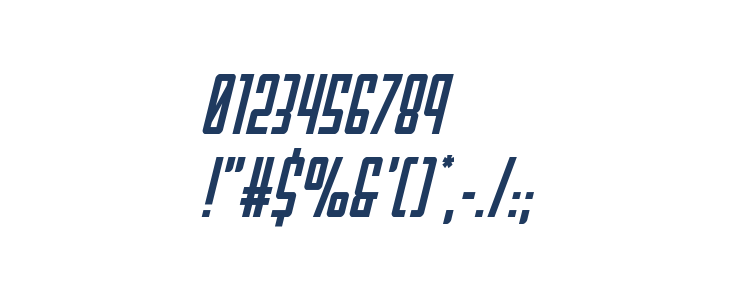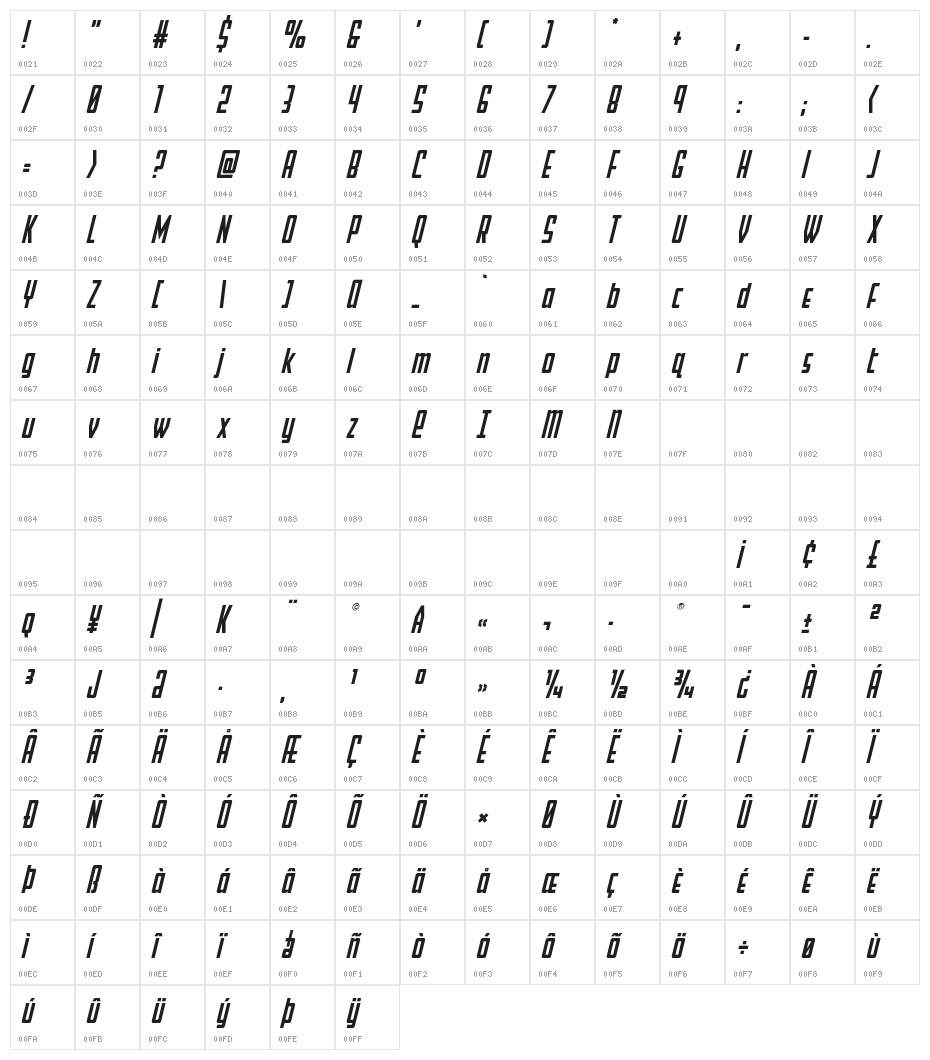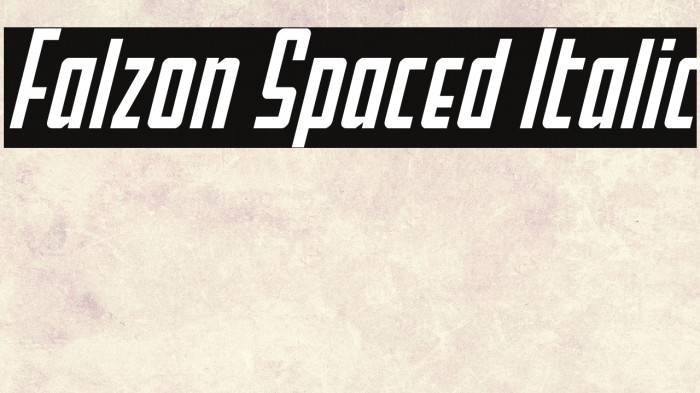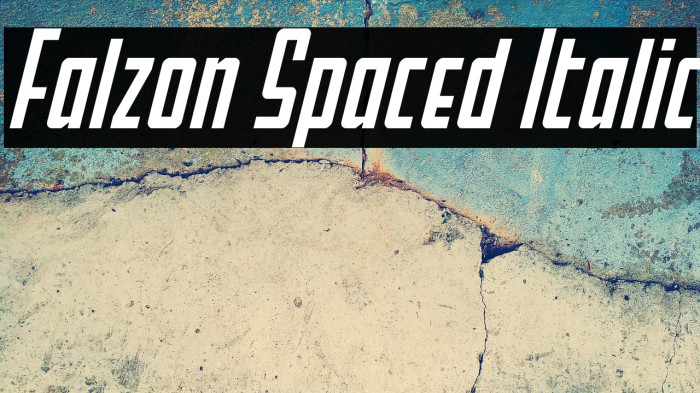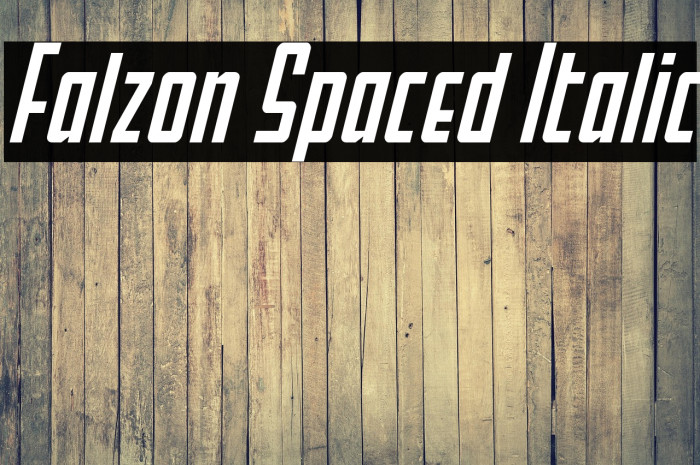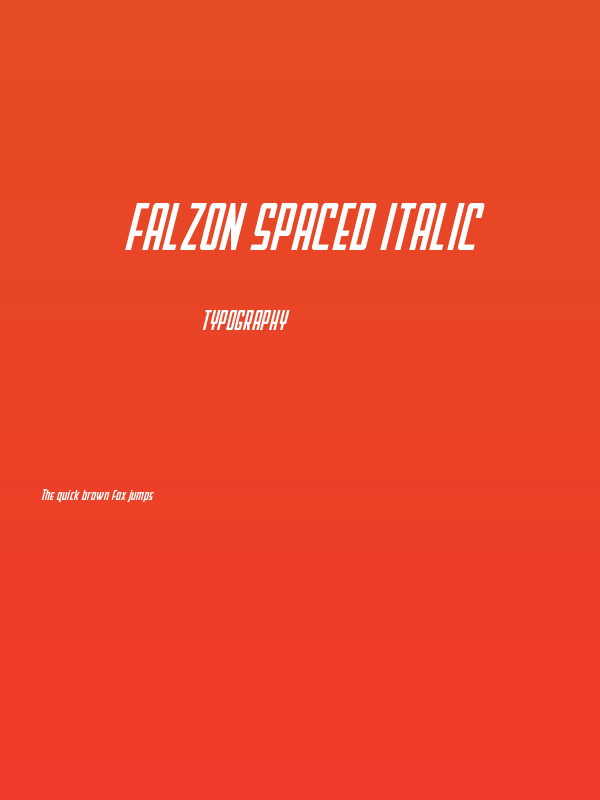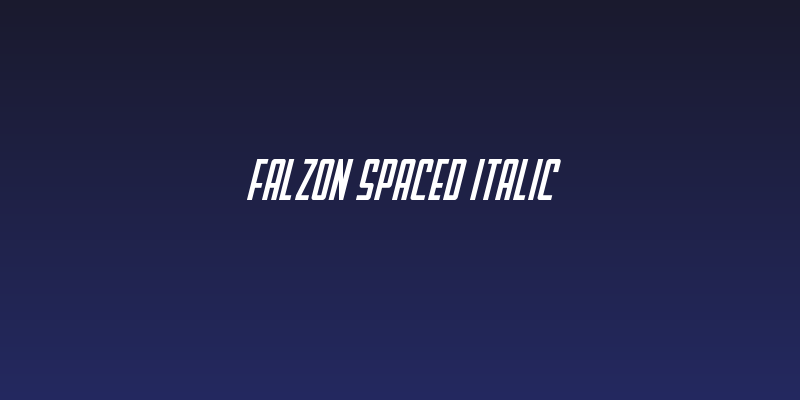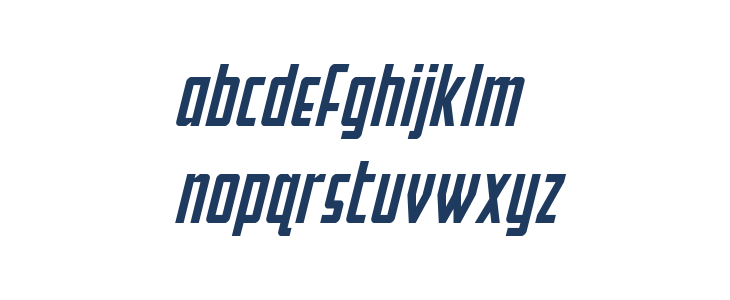
Falzon Spaced Italic Font
Falzon Spaced Italic Description
This font features a dynamic and modern design with a distinct italic slant, giving it a sense of motion and energy. The characters are bold and condensed, with sharp angles and clean lines that create a futuristic and sleek appearance. The uppercase and lowercase letters maintain a consistent style, while the numerals and special characters complement the overall aesthetic. The font's high contrast in stroke thickness adds to its striking visual impact, making it suitable for attention-grabbing headlines and designs.
Proposed ProjectsIdeal for sports branding, dynamic posters, futuristic designs, and modern advertising campaigns.